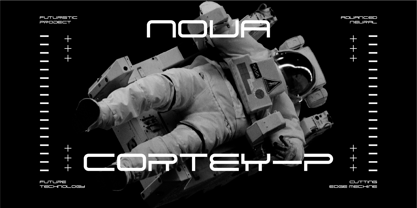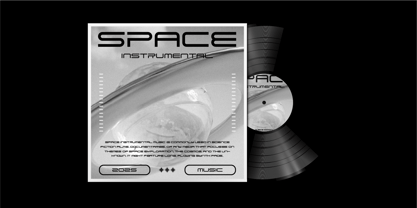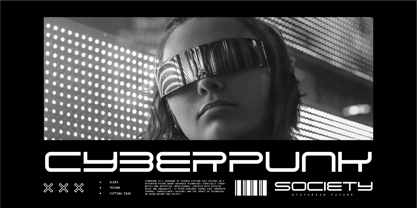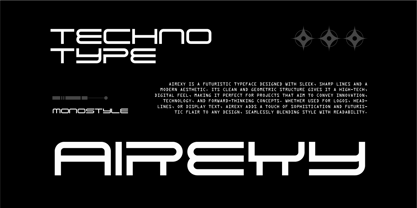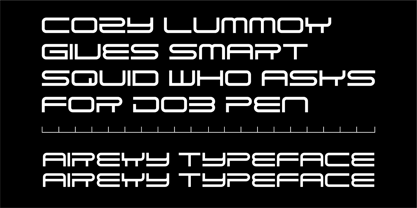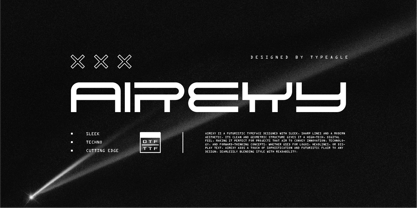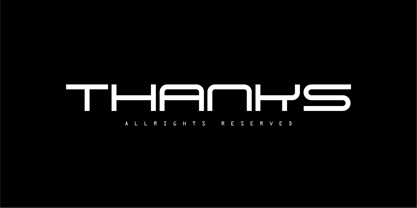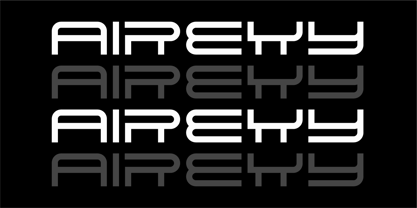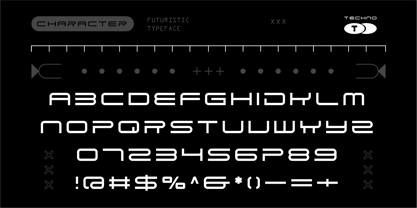
Airexy
by Typeagle
Airexy is a futuristic typeface designed with sleek, sharp lines and a modern aesthetic. Its clean and geometric structure gives it a high-tech, digital feel, making it perfect for projects that aim to convey innovation, technology, and forward-thinking concepts. Whether used for logos, headlines, or display text, Airexy adds a touch of sophistication and futuristic flair to any design, seamlessly blending style with readability.
Foundry: Typeagle
Typeagle is an Indonesian type design studio specializing in graphic design and futuristic display fonts. The studio focuses on creating distinctive typefaces that combine modern aesthetics, technological inspiration, and bold visual identities. Typeagle develops custom fonts designed for branding, posters, digital media, gaming, entertainment, and creative projects that require a strong futuristic character.